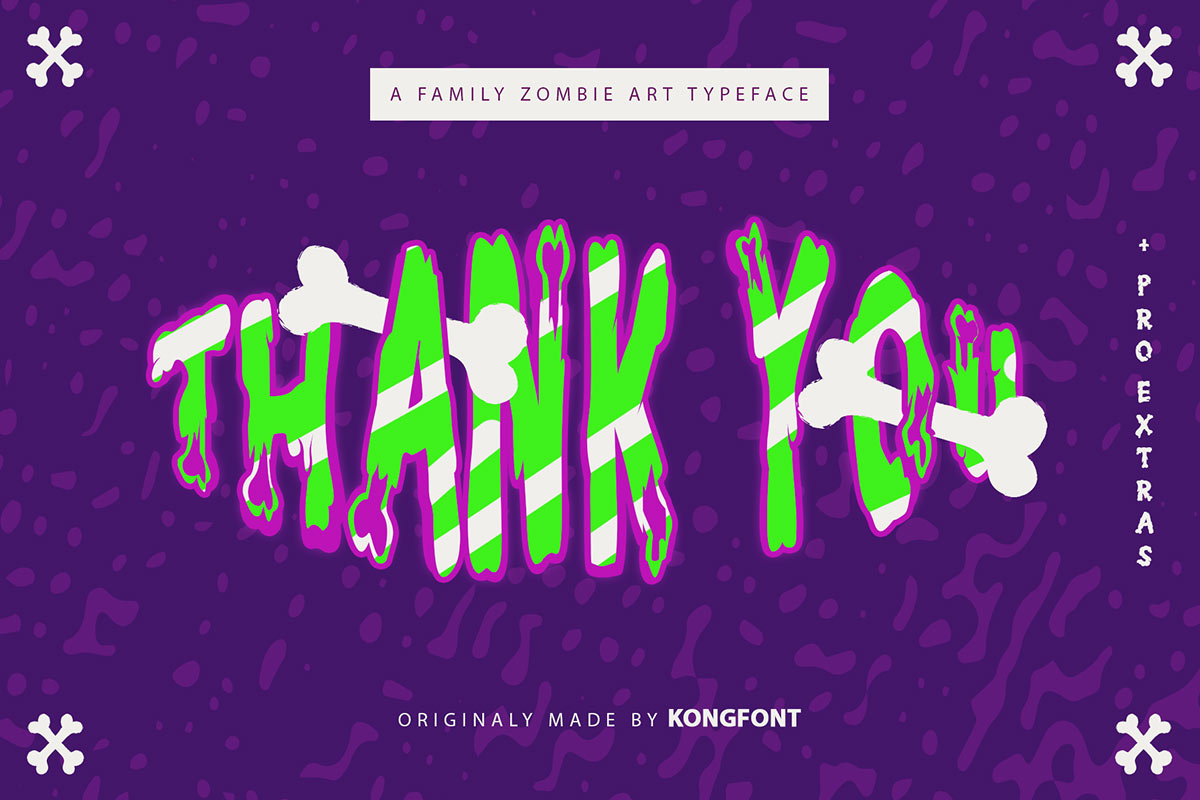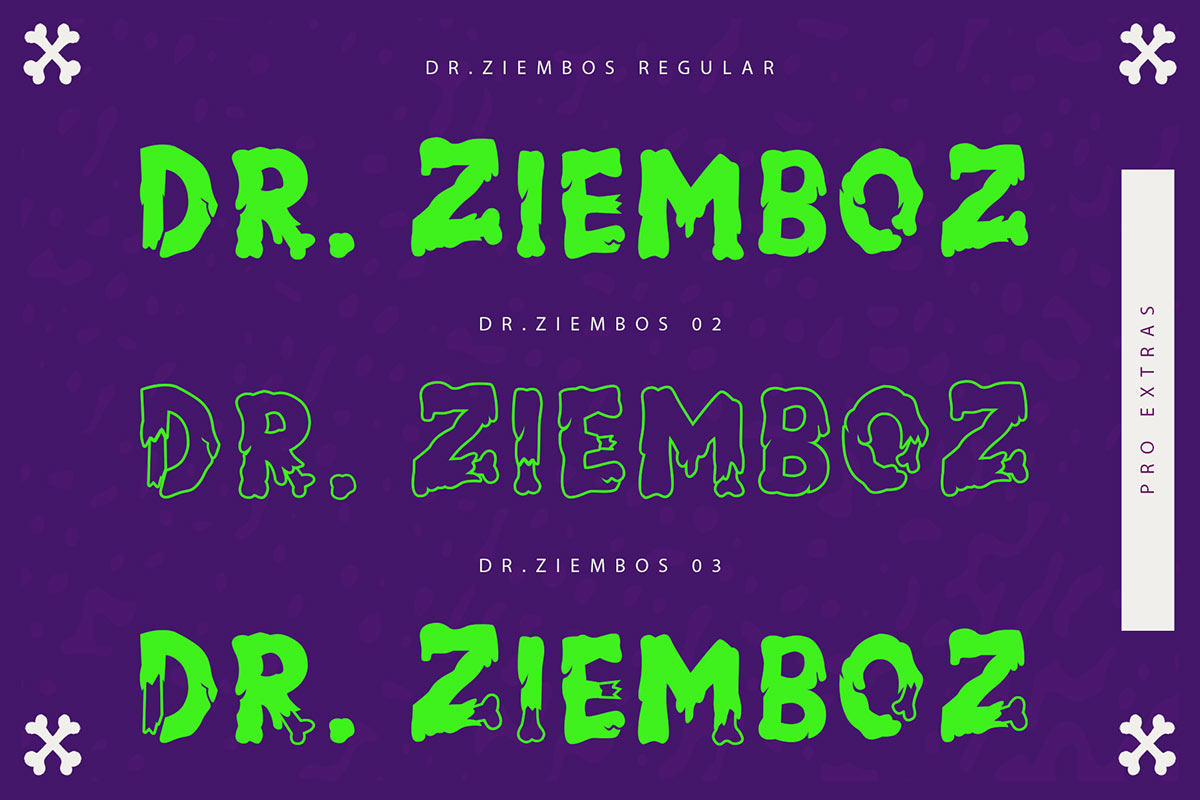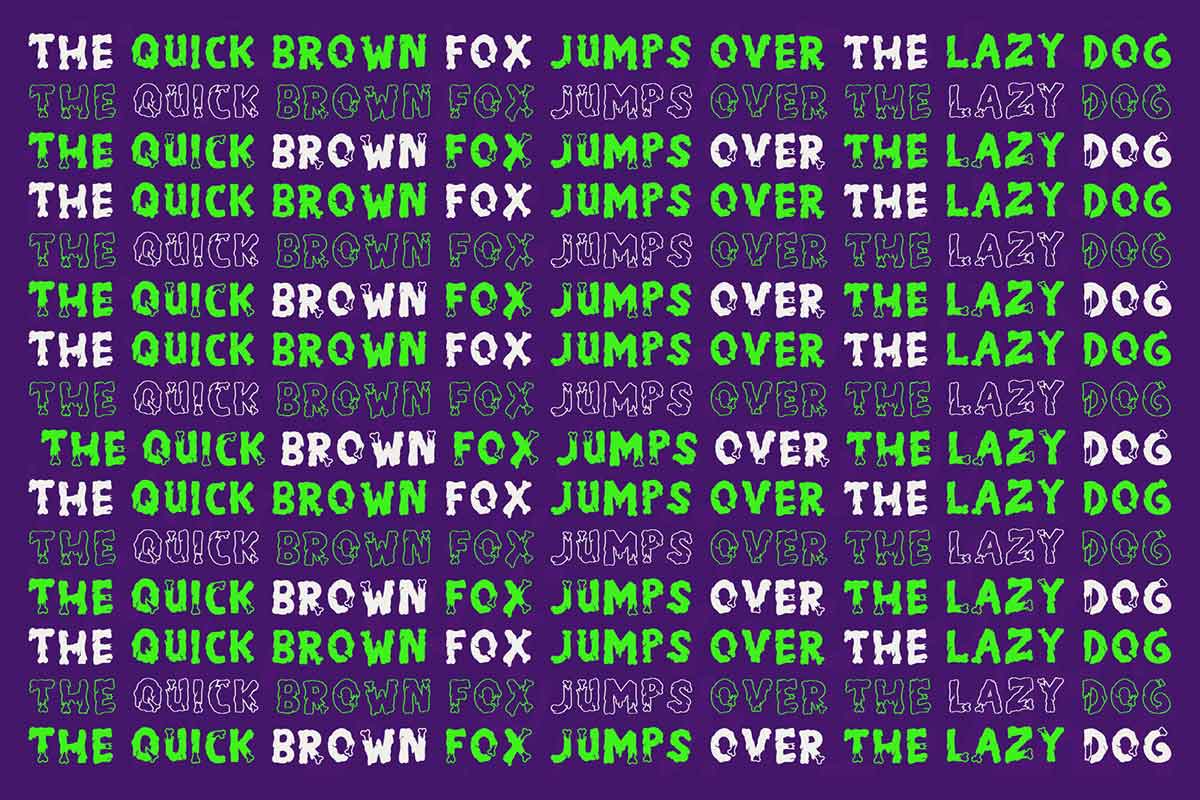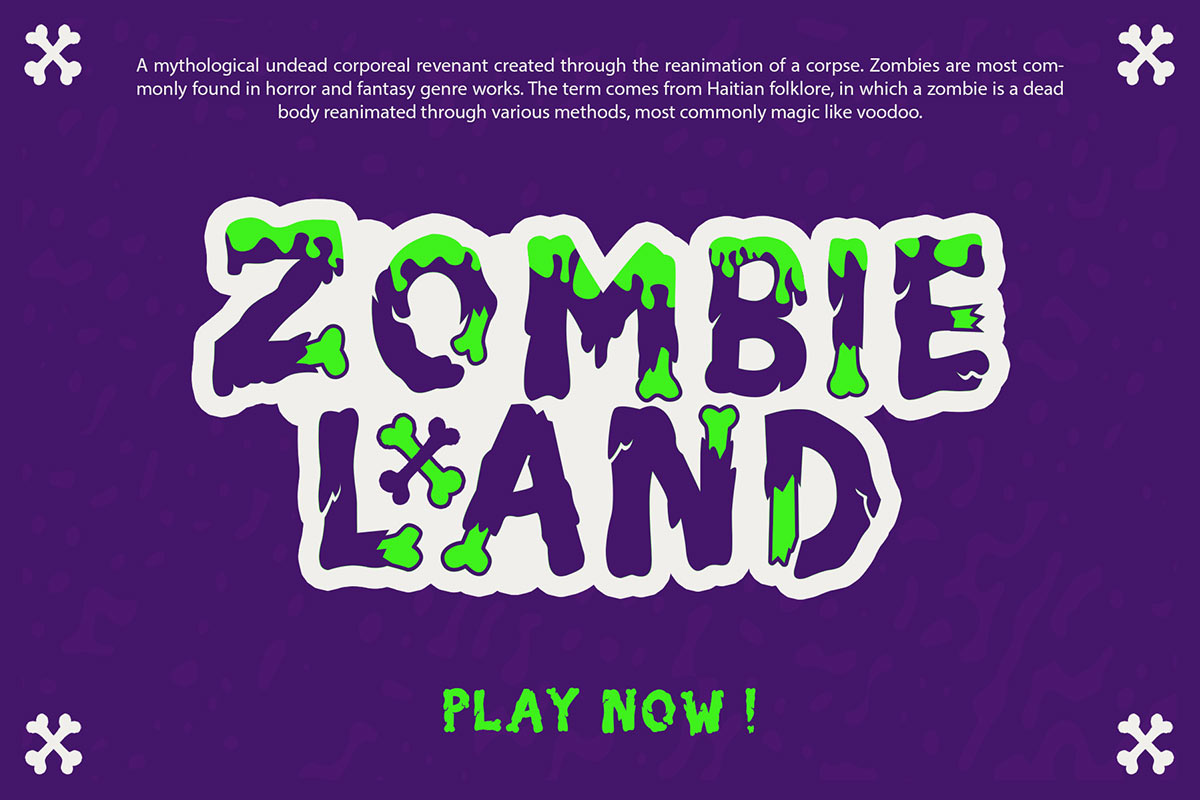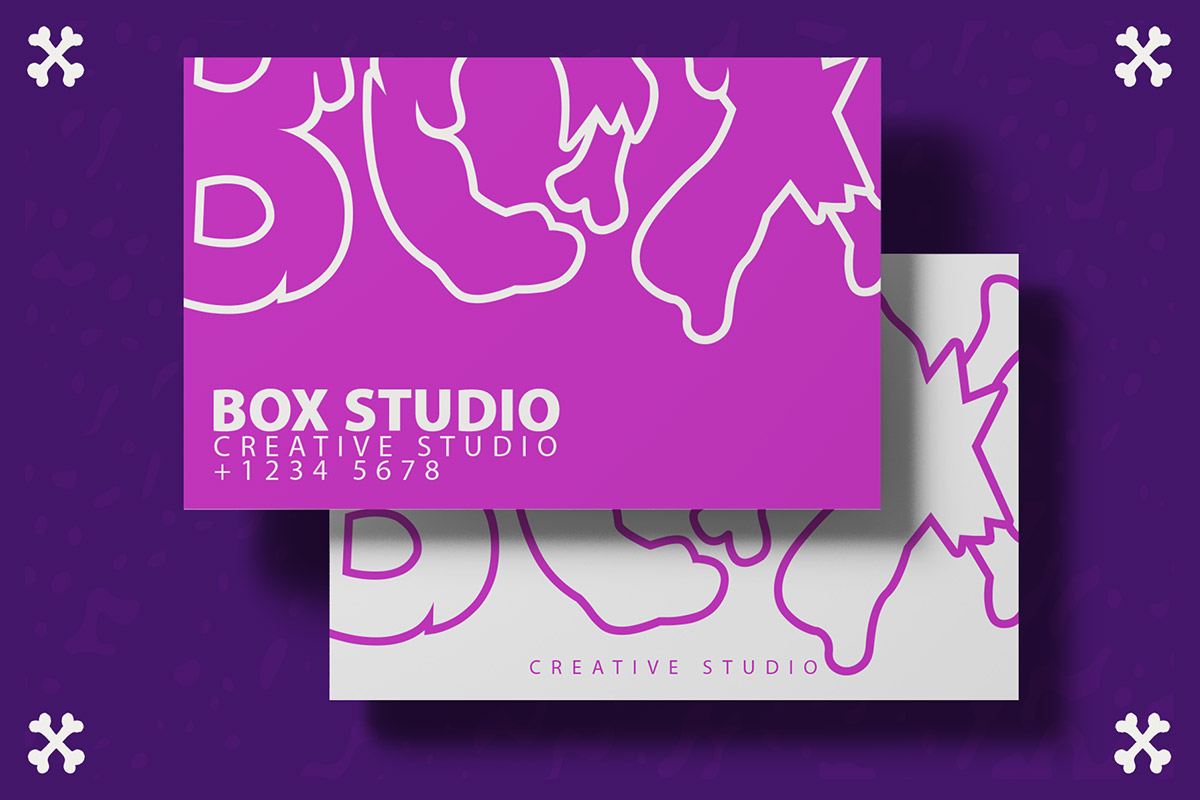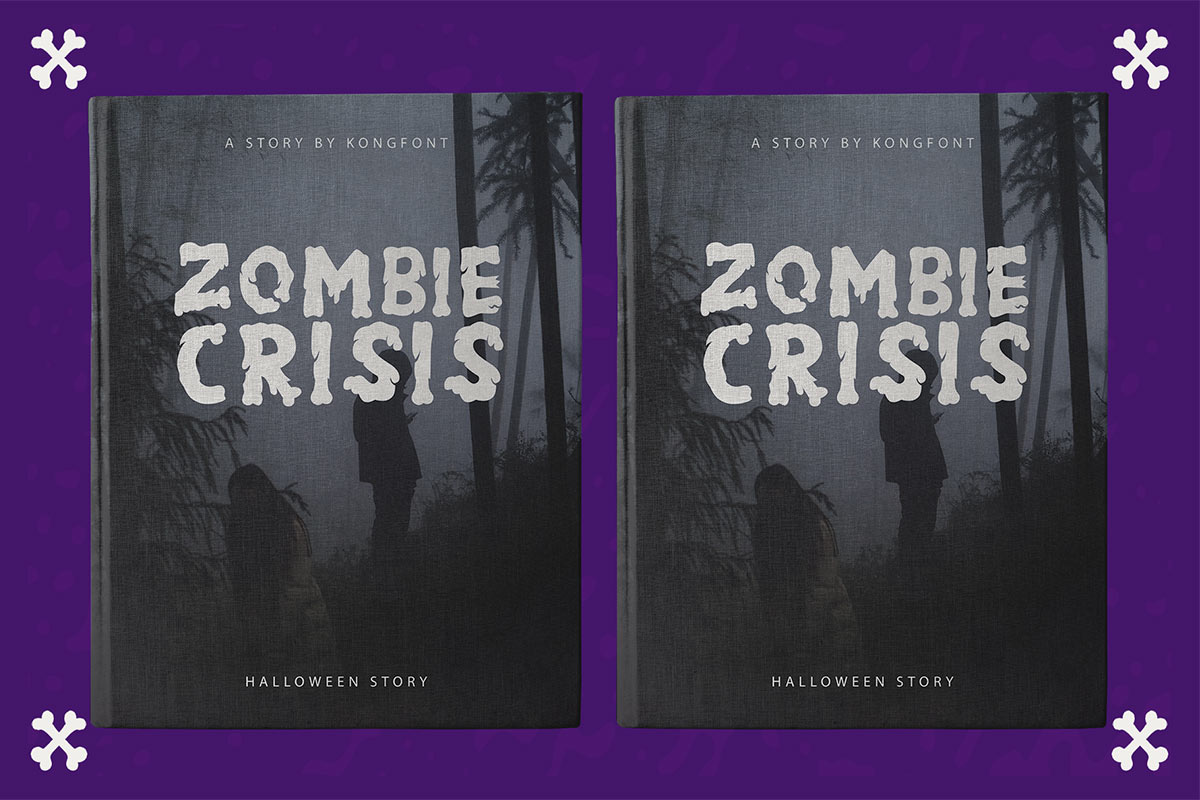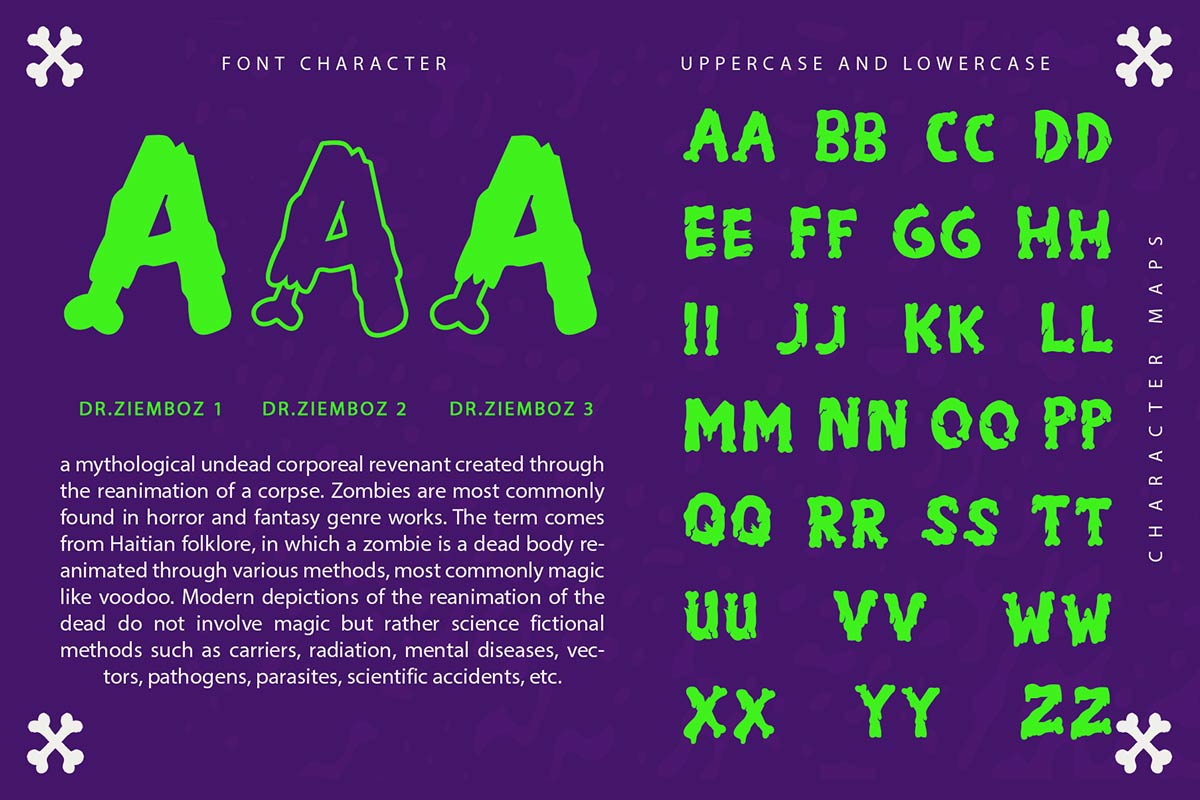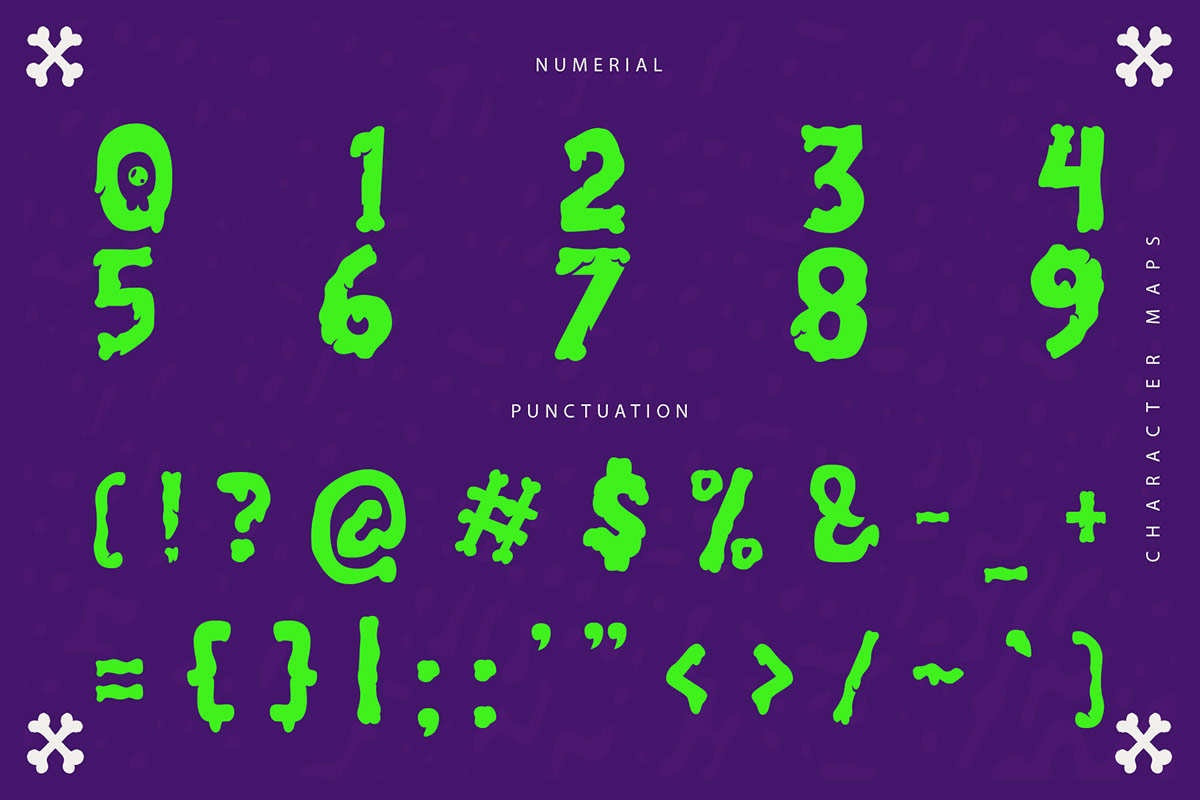
Dr Ziemboz Decorative Font Kong Font is here to bring you a new variety of fonts every day. We are happy to provide unique and attractive font types for you to practice in digital and print forms. In addition, we have provided a variety of different file types according to your order. Dr.Ziemboz Modern Font is a font that was created to enliven the Decorative font variety. Let's see the different things that can be found in the characteristics of this font. It has a shape that is the same as the letters, which is not straight and has the impression of a sharp end. Not only that, if you look closely at this font the bodies don't connect perfectly. From this explanation, friends may find other features of this font that are no less unique. Even though it has something different, this font is classified as a legible font. It can be printed in small or large font sizes and is still legible. The uniqueness font raises will be in vain if it is not used with the appropriate theme, object, and font size. We can see that Dr.Ziemboz Modern Font is the best font to use for horror movie titles and spooky themes and music titles. Other things combined with this font are stickers, t-shirts, banners, and posters. The impression of mystery that is raised by this font can make anyone fascinated when they see it. Our collection of Blackletter fonts is compatible for use as Figma fonts, Canva fonts, Freepik Fonts, and Adobe Fonts. They also work as Windows Fonts and Apple Fonts. For your social media needs, you can use and install fonts in our Blackletter font collection to use as Instagram Fonts, Facebook Fonts, and Twitter Fonts.